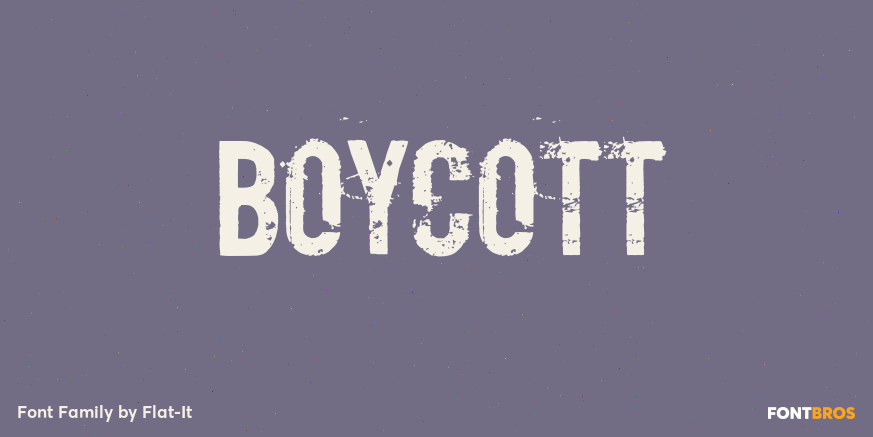
HomeFont BrosDistressedBoycott DistressedSans SerifSpecial EffectFuturistic Boycott FacebookXPinterestWhatsApp 1 of 1 About Boycott We are calling for a boycott against petty power struggles. This grungy font is the best selling font from 2006 in many venders.  DOWNLOAD NOW People also explored Calstavier Font Midellion Font Ranormal Font Homemade Font Bubble Valentine Font Willona Font Obligod Outline Semi-Bold Font Halfdressed Font Aviano 210 0 TagsBoycottBoycott Font Previous articleSyncopated ScriptNext articleDuty Calls BB LEAVE A REPLY Cancel reply Comment: Please enter your comment! Name:* Please enter your name here Email:* You have entered an incorrect email address! Please enter your email address here Website: Save my name, email, and website in this browser for the next time I comment. Personal Use Free Burgie Personal Use Free Read more about this font Hiters Personal Use Free Read more about this font Numberpile Personal Use Free Read more about this font Bellarin Personal Use Free Read more about this font BLOG Free Fonts Risk: Why Free Fonts Can Be Dangerous for Designers Free Fonts Risk: Why Free Fonts Can Be Dangerous for Designers Using free fonts is a common practice in web and graphic design. However, the... Best Fonts for YouTube Videos: Make Your Thumbnails Stand Out Using Fonts in Digital Marketing: Tips to Strengthen Your Brand Identity How to Cut Any Font on Cricut: Convert a Font to SVG (Free)